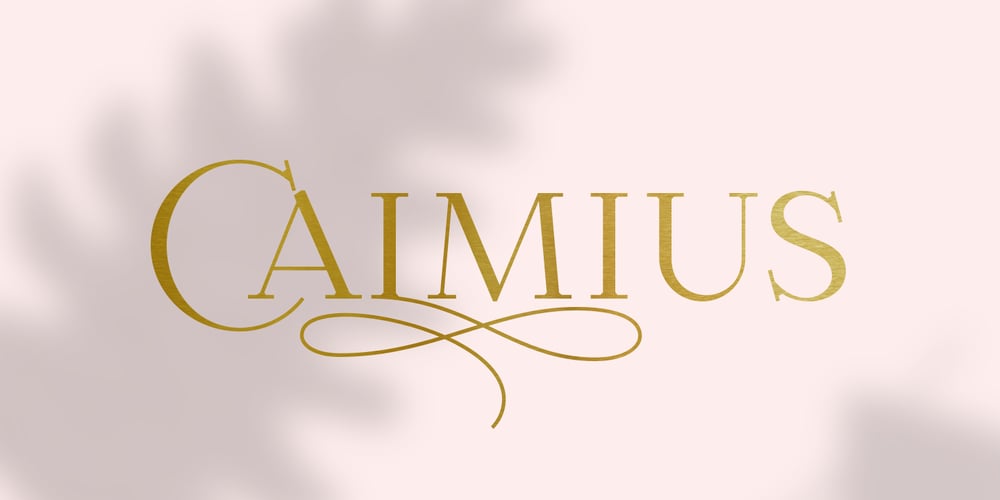
Calmius Font Family was designed by Andriy Dykun and published by NREY. Calmius contains 15 styles and family package options. Calmius is an elegant modern serif font family inspired by fashion typography. It perfectly represents modern and vintage esthetics. The font includes small caps letters, stylistic alternates, oldstyle figures and beautiful ligatures. Calmius is perfect for wedding elegant invitation cards, beauty and fashion package design, and very suitable for books design, magazines typography, packaging, branding and more other creative project.It has support for many languages: Afrikaans, Basque, Belarusian, Bosnian, Catalan, Croatian, Czech, Danish, Dutch, English, Estonian, Faroese, Filipino, Finnish, French, Galician, German, Icelandic, Indonesian, Irish, Italian, Latvian, Lithuanian, Macedonian, Malay, Norwegian Bokmål, Portuguese, Romanian, Russian, Serbian, Slovak, Slovenian, Spanish, Swahili, Swedish, Turkish, Ukrainian, Zulu and more.To enable the OpenType Stylistic alternates, you need a program that supports OpenType features such as Adobe Illustrator, Indesign, Photoshop & CorelDraw X6-X7. More information about how to access alternate glyphs, you can see it on this link (https://goo.gl/R1n7L8).